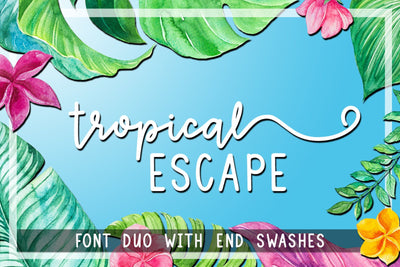
Tropical Escape - Font Duo with End Swashes
One has all the characters included with the font and in order to access the end swashes you'll need to use a character map.
The second font file includes just the letters with their end swashes. This second file may be a preference to some and most user friendly for newer users to get your end swashes. Easy switch to your swash alternative by just highlighting your letter & changing the font.